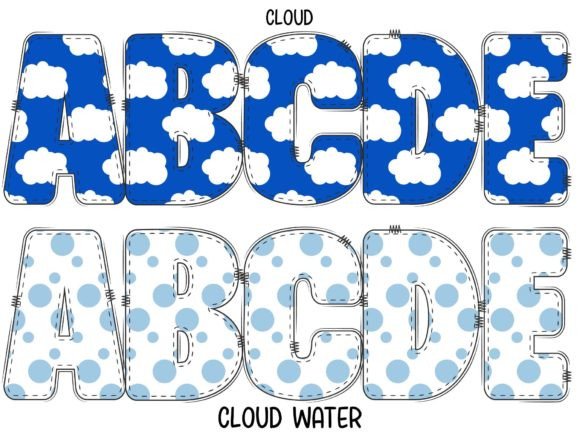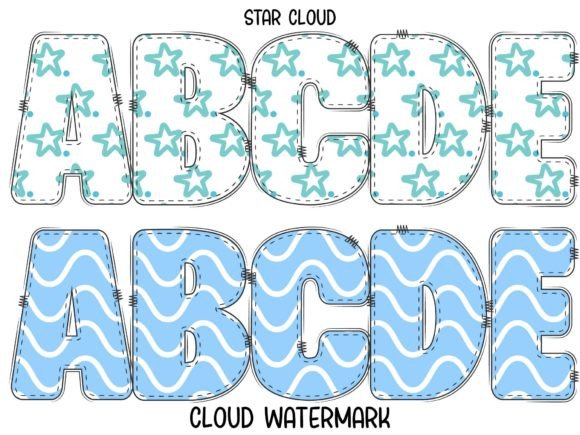
Unlock Creative Possibilities with Cloud Font: A Stunning Color Font
Are you looking for a font that can elevate your designs and make them stand out? Look no further than Cloud Font, a beautiful and creative color font that can add a touch of magic to your projects. In this article, we’ll explore the features and benefits of Cloud Font, its compatibility with popular design software, and provide tips on how to get the most out of this amazing font.
What is Cloud Font?
Cloud Font is a stunning color font that is sure to capture your imagination. Its unique and creative design makes it perfect for a wide range of projects, from crafting and scrapbooking to graphic design and digital art. With its intricate details and beautiful color scheme, Cloud Font is sure to add a touch of elegance and sophistication to any design.
Key Features of Cloud Font
- Color Font (Opentype-SVG): Cloud Font is a color font in Opentype-SVG format, which allows it to display a wide range of colors and gradients.
Benefits of Using Cloud Font
Cloud Font offers a range of benefits to designers and crafters, including:
- Unique and Creative Designs: Cloud Font’s unique design makes it perfect for creating eye-catching and creative projects.
- Easily Customizable: With its color font format, Cloud Font can be easily customized to match your brand or project’s color scheme.
- Time-Saving: Cloud Font’s wide range of colors and gradients saves you time and effort in creating complex designs.
Tips and Tricks for Getting the Most Out of Cloud Font
Here are some tips and tricks to help you get the most out of Cloud Font:
- Experiment with Colors: Experiment with different colors and gradients to create unique and eye-catching designs.
- Combine with Other Fonts: Combine Cloud Font with other fonts to create interesting and creative typography.
- Use in Digital Art: Use Cloud Font in digital art projects, such as illustrations and graphics, to add a touch of elegance and sophistication.
Cloud Font is a stunning color font that is sure to elevate your designs and make them stand out. With its unique and creative design, wide compatibility, and ease of use, Cloud Font is perfect for designers and crafters alike. So why wait? Download Cloud Font today and start creating amazing projects!